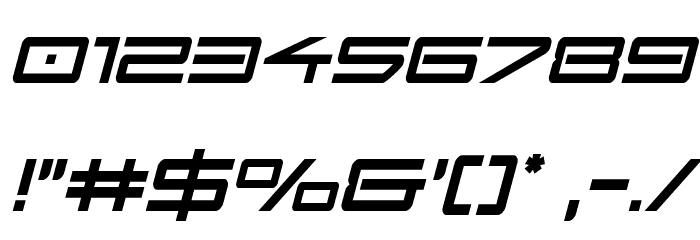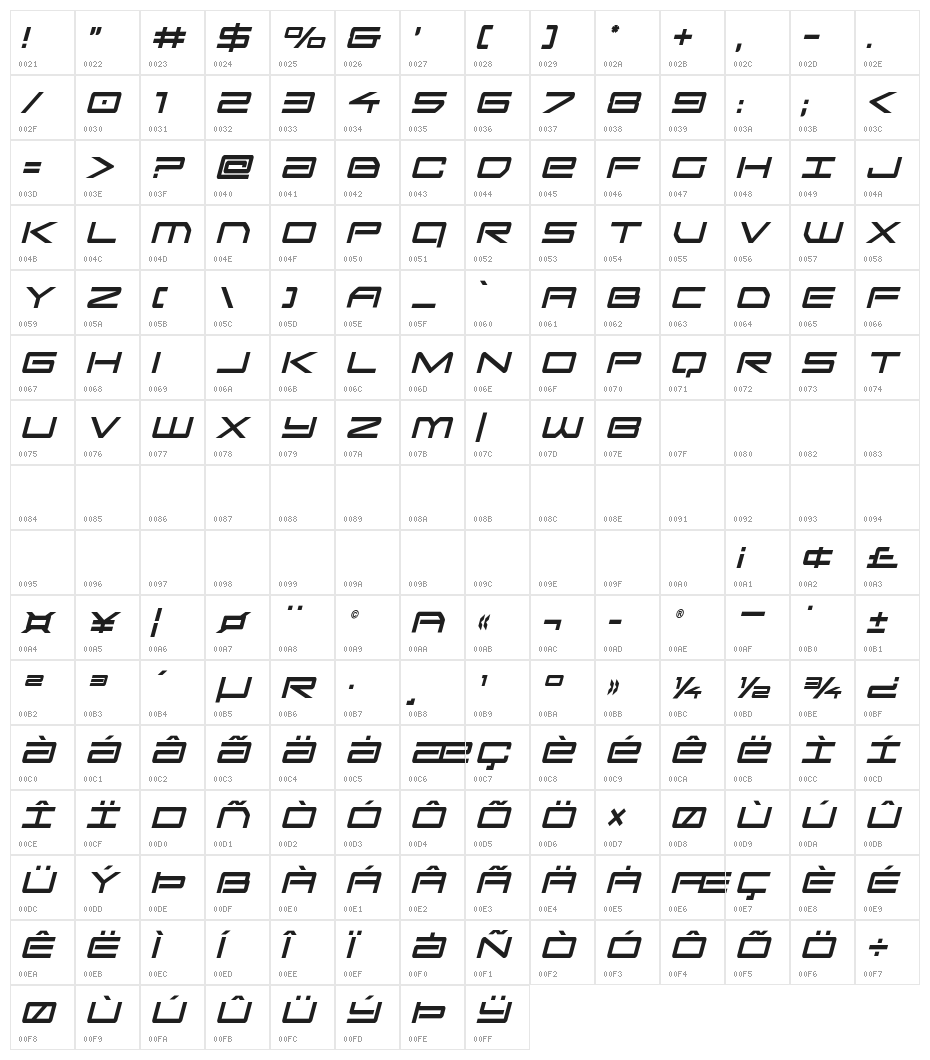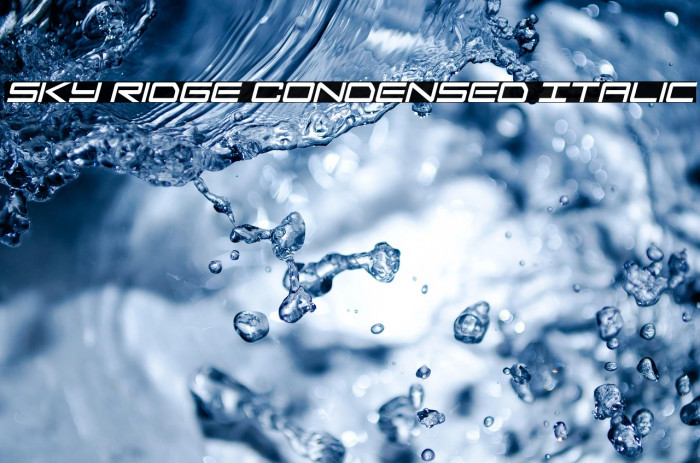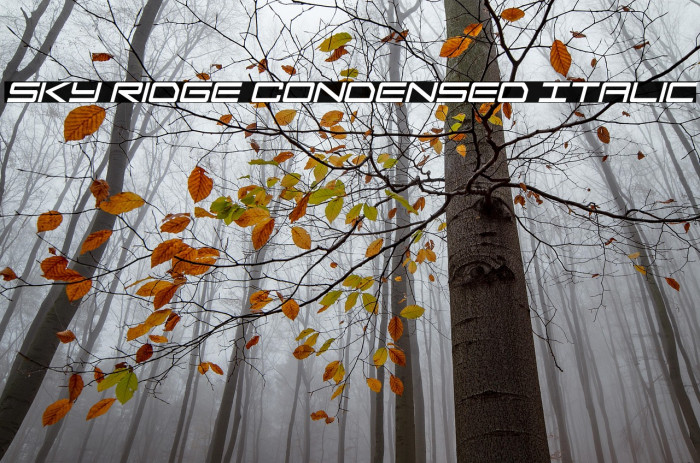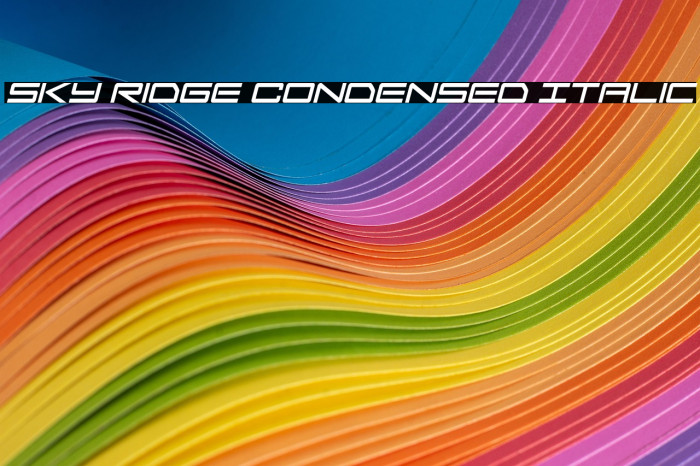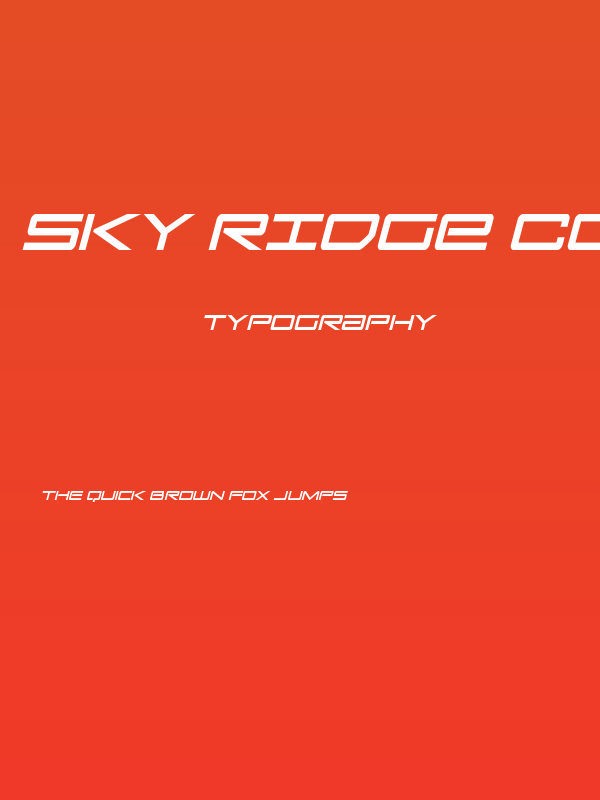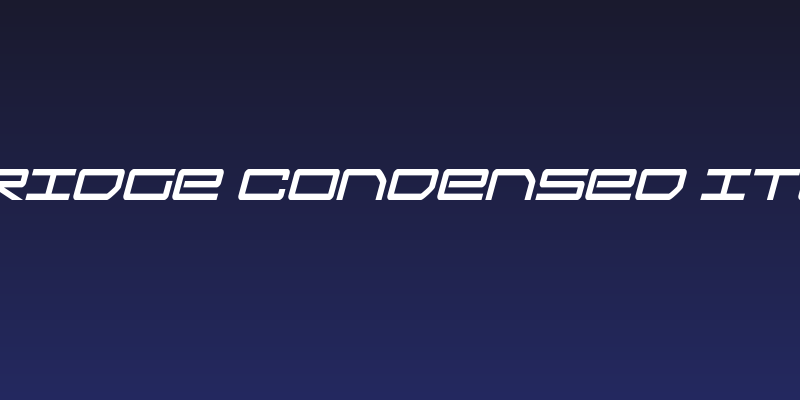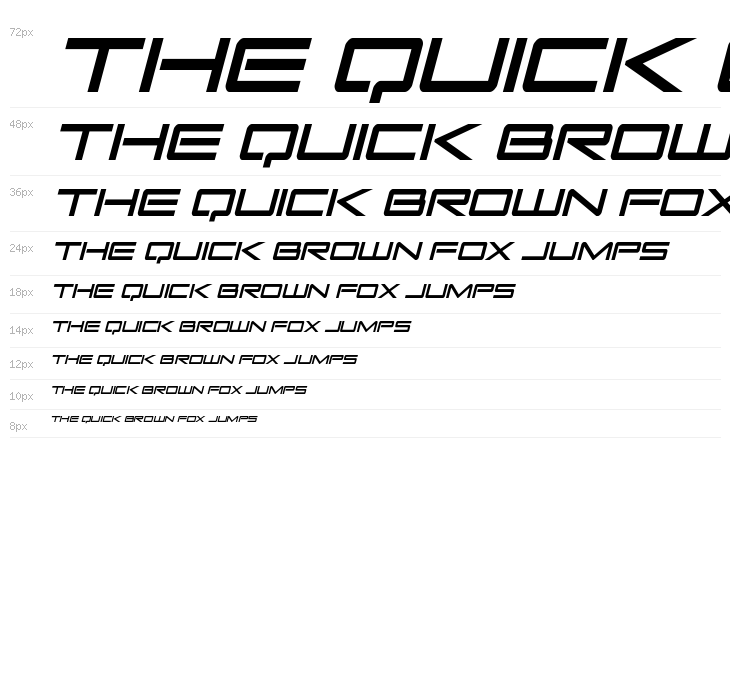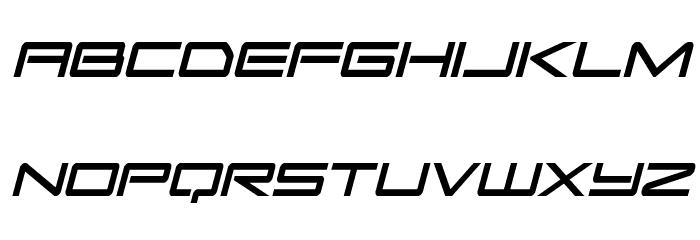
Sky Ridge Condensed Italic Font
Sky Ridge Condensed Italic Description
This font features a sleek, futuristic design with a condensed and italicized style. The characters are elongated and slightly slanted, giving a sense of motion and speed. The geometric shapes and sharp angles contribute to its modern and dynamic appearance. The uppercase and lowercase letters maintain a consistent style, with uniform stroke widths and minimal contrast. The numerals and special characters follow the same design principles, ensuring a cohesive look across all elements. This font is ideal for projects that require a contemporary and energetic feel.
| Proposed Projects | Ideal for technology branding, sci-fi posters, video game titles, and modern advertising. |